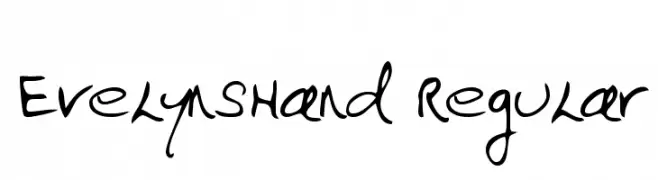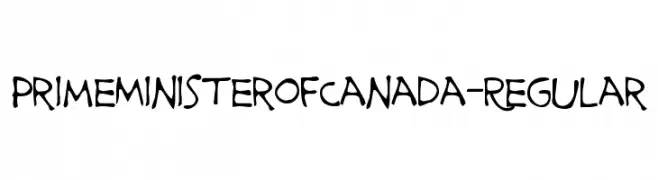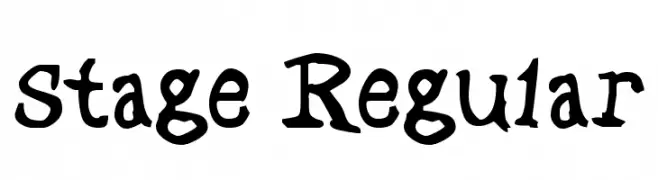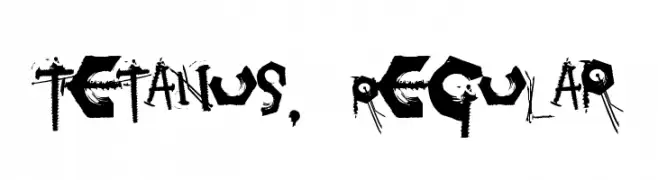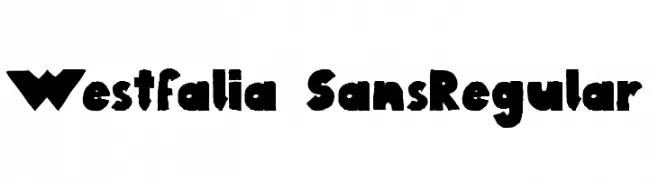
A playful, handwritten font with tall, narrow letters and a whimsical style.
A playful, handwritten font with uneven strokes and a casual style.
A bold, spooky font with jagged, irregular characters perfect for horror themes.
A bold, playful, hand-drawn style font with rounded, irregular characters.
A playful, handcrafted font with bold, irregular strokes and an artistic flair.
A playful, hand-drawn font with bold, irregular strokes and a whimsical style.
A playful, handwritten font with dynamic strokes and a casual, expressive style.
A playful, handwritten font with tall, narrow letters and a casual style.
A lively handwritten font with fluid, playful strokes.
A geometric, modern font with clean lines and a structured appearance.
A casual handwritten font with smooth, flowing lines and a playful, relaxed style.
A playful, hand-drawn font with a casual and creative style.
A playful, hand-drawn style with dynamic strokes and a whimsical touch.
A playful, hand-drawn font with alien-themed motifs and rounded letterforms.
A playful, handwritten font with smooth, flowing lines and a casual style.
A playful handwritten font with a casual, friendly style.
A playful, hand-drawn font with a whimsical and friendly style.
A playful, crayon-like font with a hand-drawn, textured appearance.
A playful, handwritten font with rounded, informal letterforms.
A playful, artistic handwritten font with a brush-like texture.
A playful, hand-drawn font with a quirky and approachable style.
A playful, hand-drawn font with bold, irregular strokes and a casual vibe.
A playful handwritten font with a casual and whimsical style.
A playful handwritten font with a casual, friendly style and whimsical car illustrations.
A playful, casual handwritten font with smooth, flowing lines.
A tall, narrow, hand-drawn style font with a playful and modern aesthetic.
A playful, handwritten font with smooth, rounded edges and a casual style.